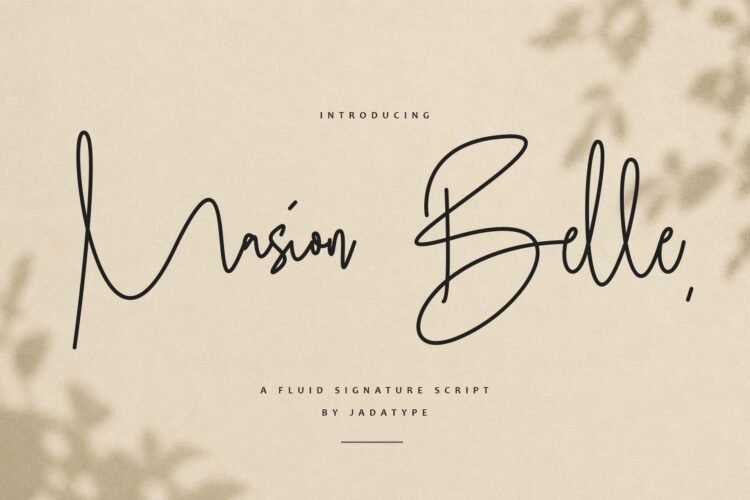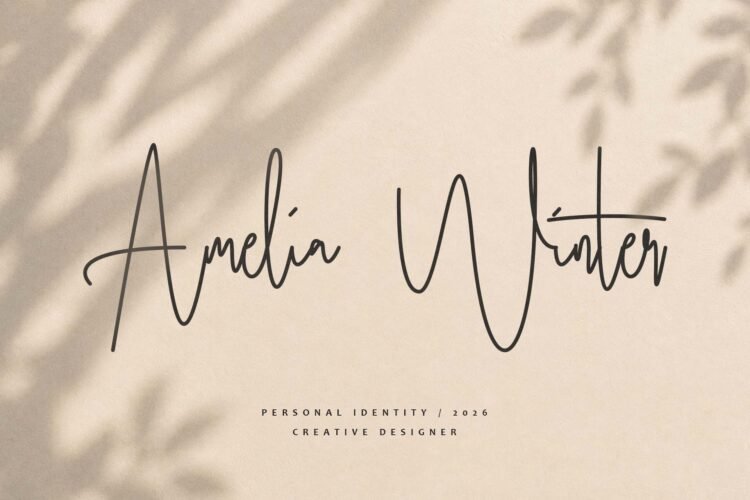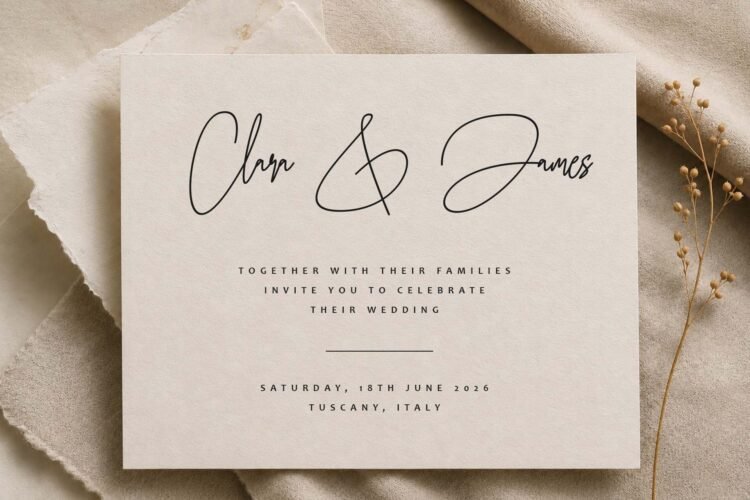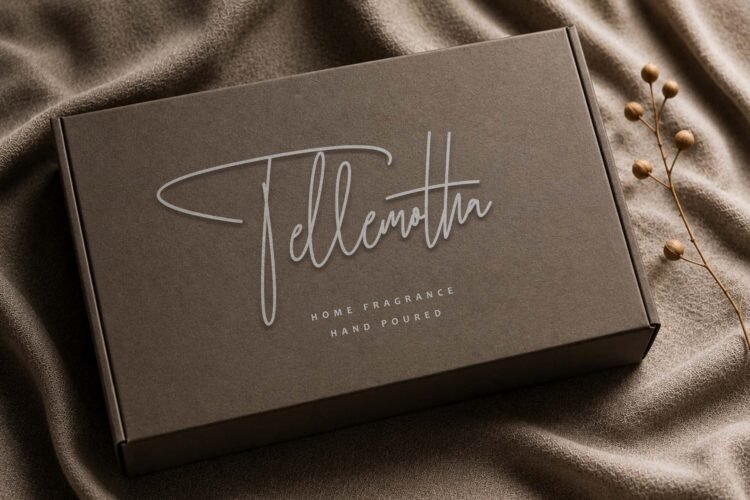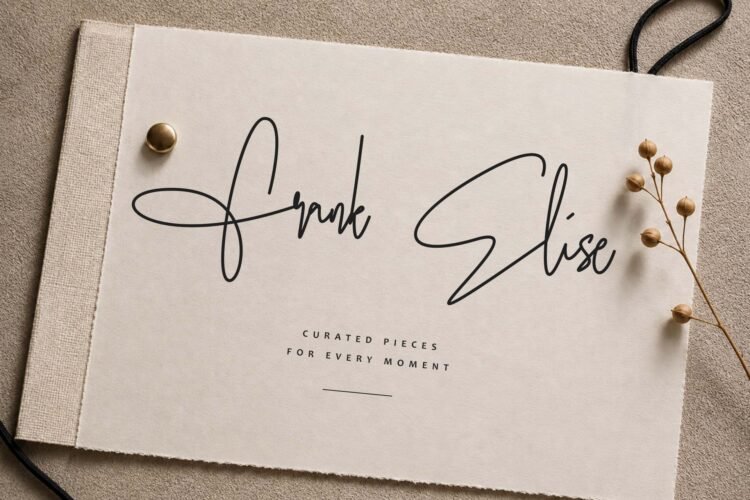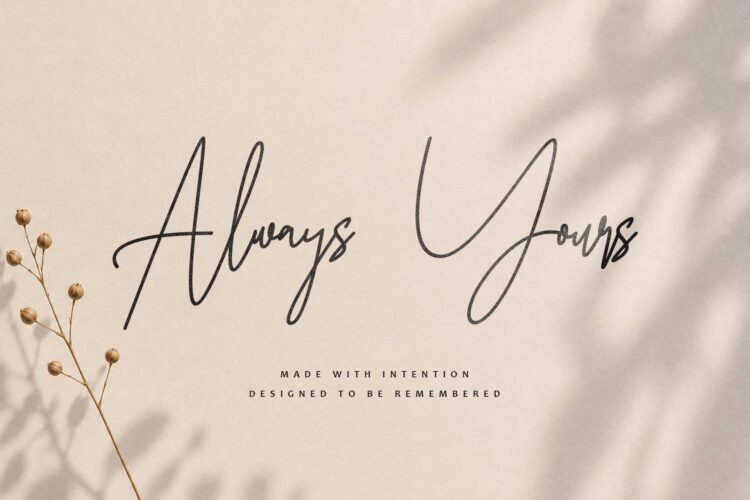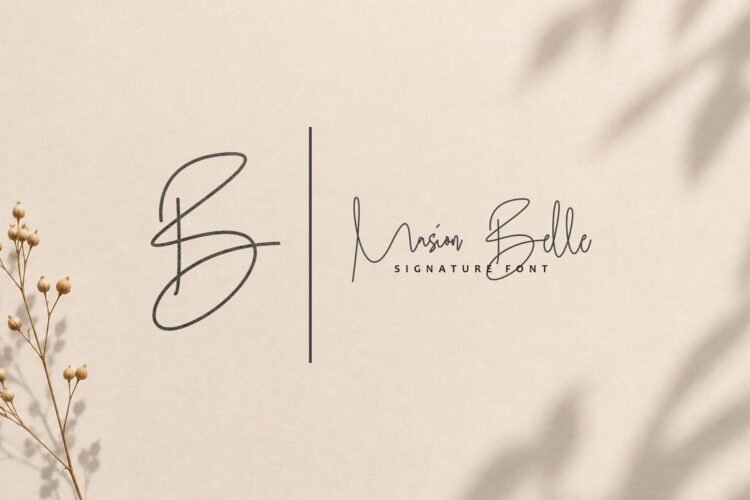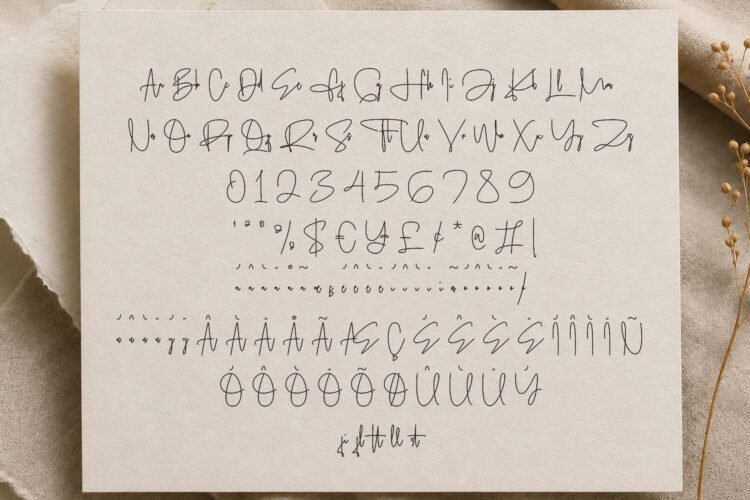
Masion Belle is an elegant monoline script font that combines smooth handwritten strokes with graceful curves and a refined, flowing character. Its clean single-line construction gives it a polished yet personal appearance, making it especially suitable for sophisticated designs that call for a light and graceful handwritten touch.
Perfect for branding, logo design, invitations, greeting cards, wedding stationery, product packaging, social media graphics, editorial layouts, and other elegant display applications. Its cursive structure and playful flowing details make it versatile for both romantic and contemporary creative projects. Designed by Jada Akbal and published by Jadatype
• Standard uppercase and lowercase letters
• Numbers and basic punctuation
• Elegant monoline cursive letterforms
• Several accented characters for multilingual support